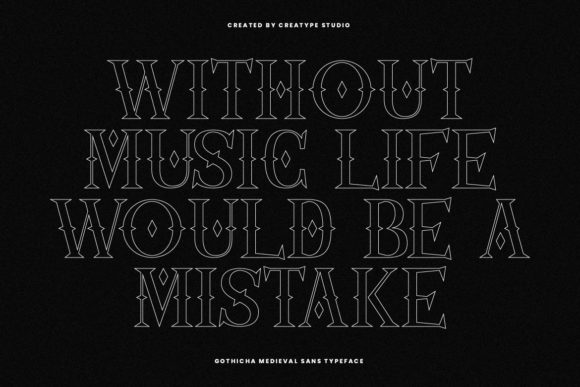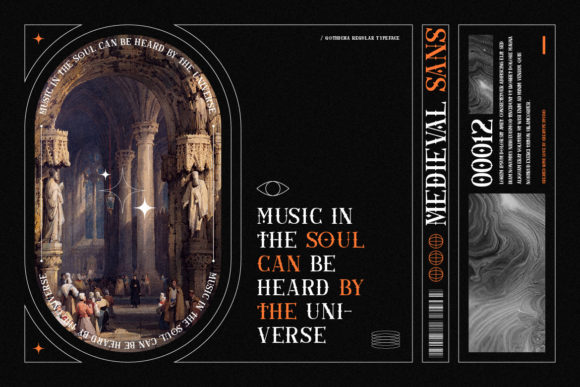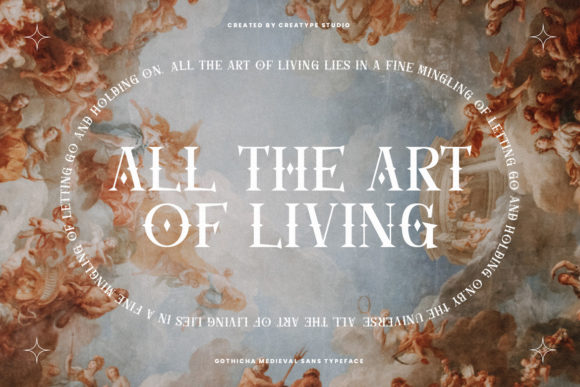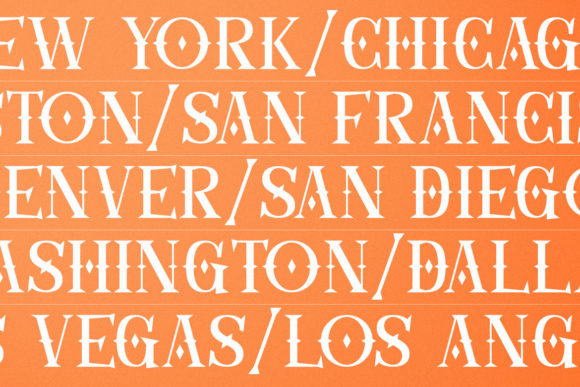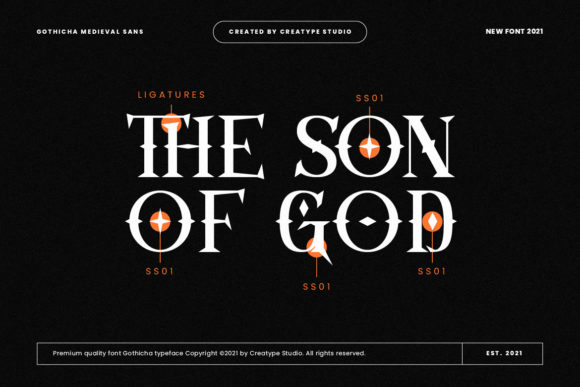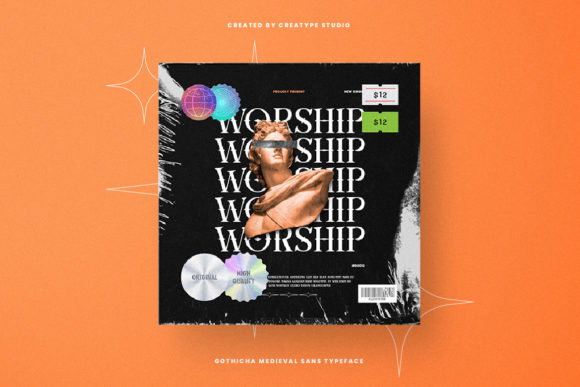
Introducing Gothicha Font: Elevate Your Designs with a Bold and Victorian Flair
In the world of typography, fonts play a crucial role in conveying the tone and aesthetic of a design. For designers and crafters looking to add a touch of elegance and sophistication to their creations, Gothicha Font is an excellent choice. This bold and Victorian-styled serif font is designed to make a statement, and with its PUA encoding, it’s easier than ever to access a wide range of glyphs and swashes.
What is Gothicha Font?
Gothicha Font is a serif font that draws inspiration from the ornate and intricate styles of the Victorian era. Characterized by its bold lines, dramatic flourishes, and classic letterforms, Gothicha is the perfect choice for designers looking to add a touch of luxury and refinement to their designs. Whether you’re working on a branding project, a wedding invitation, or a packaging design, Gothicha Font is sure to make a lasting impression.
Key Features of Gothicha Font
- PUA Encoding: Gothicha Font is PUA (Private Use Area) encoded, which means that you can access all glyphs and swashes with ease. This encoding allows you to unlock the full potential of the font, giving you the creative freedom to experiment with different combinations of letters and flourishes.
- Bold and Victorian Style: Gothicha Font boasts a bold and dramatic style that’s reminiscent of the Victorian era. Its serif lines and classic letterforms evoke a sense of elegance and sophistication, making it perfect for designs that require a touch of luxury.
- Wide Range of Glyphs and Swashes: With Gothicha Font, you’ll have access to a wide range of glyphs and swashes that allow you to customize your designs. From intricate flourishes to ornate letterforms, you’ll be able to add a unique touch to your creations.
How to Use Gothicha Font in Your Designs
- Pair it with a Simple Font: Gothicha Font is bold and dramatic, so it’s best paired with a simple font that provides contrast. Try pairing it with a clean sans-serif font to create a striking visual effect.
- Experiment with Glyphs and Swashes: With Gothicha Font, you’ll have access to a wide range of glyphs and swashes. Experiment with different combinations to add a unique touch to your designs.
- Use it for Headings and Titles: Gothicha Font is perfect for headings and titles, where its bold lines and dramatic flourishes can really make an impact.
Why Choose Gothicha Font?
There are many fonts available that offer a similar style to Gothicha, but here are a few reasons why Gothicha Font stands out:
- High-Quality Design: Gothicha Font is designed to the highest standards, with intricate details and precise lines that give it a professional finish.
- PUA Encoding: The PUA encoding of Gothicha Font makes it easy to access a wide range of glyphs and swashes, giving you the creative freedom to experiment with different combinations.
- Versatility: Gothicha Font is versatile and can be used in a wide range of designs, from branding and packaging to wedding invitations and more.
Gothicha Font is a bold and Victorian-styled serif font that’s perfect for designers and crafters looking to add a touch of elegance and sophistication to their creations. With its PUA encoding, wide range of glyphs and swashes, and high-quality design, Gothicha Font is an excellent choice for anyone looking to elevate their designs. So why wait? Download Gothicha Font today and let yourself be amazed by the outcome!